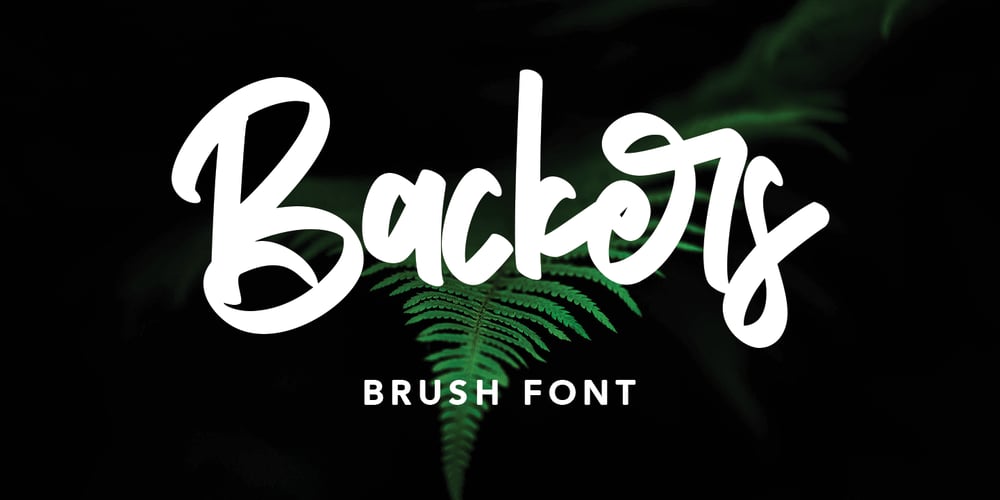
Backers
Backers font
Backers Font Family was designed by Gilang Maulana and published by Maulana Creative. Backers contains 1 styles and family package options. Give your designs an authentic handcrafted feel. “Backers” is perfectly suited to signature, stationery, logo, typography quotes, magazine or book cover, website header, clothing, branding, packaging design and more.